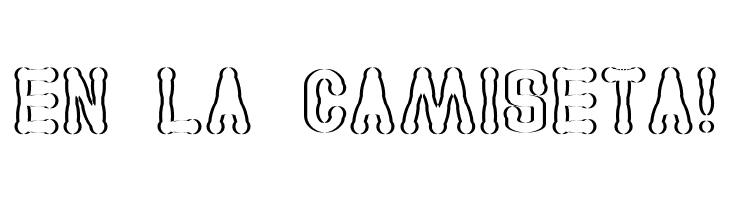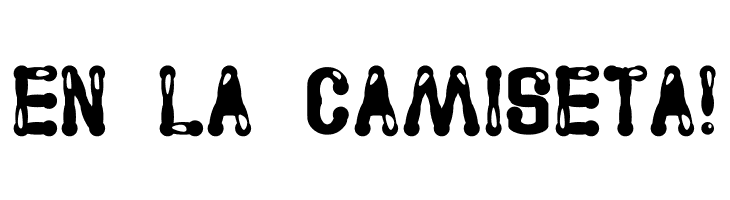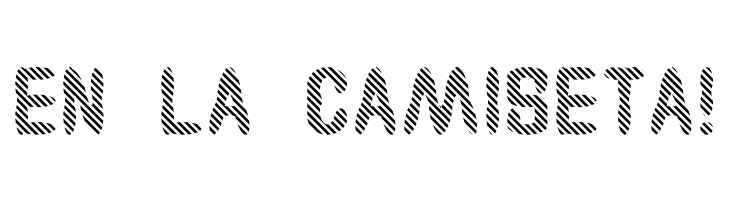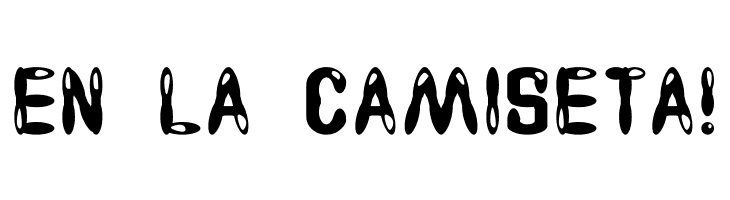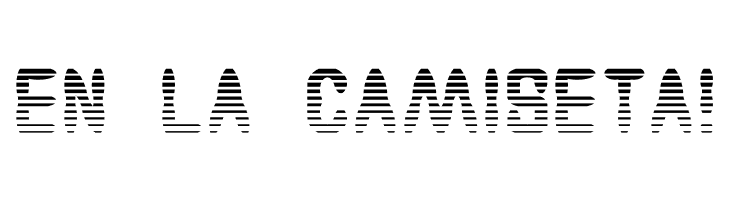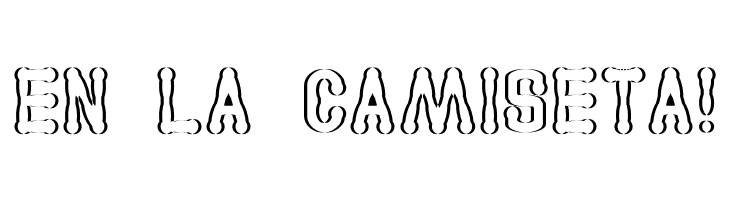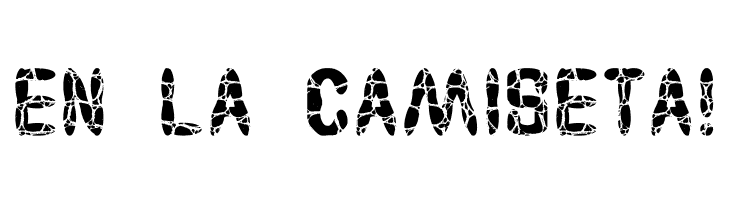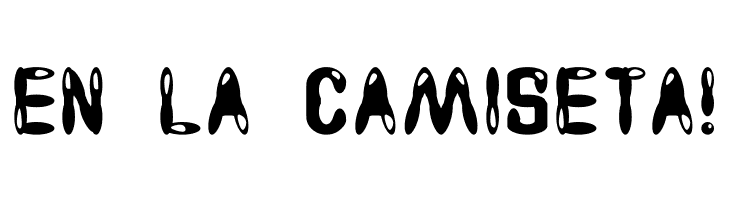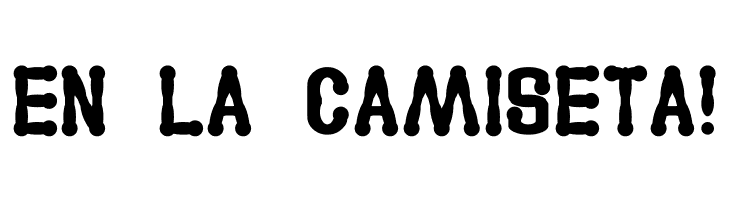
• Asswipe
• Astakhov Access Degree A
A bold, playful font with rounded, bubbly characters.
• Astakhov Access Degree A Serif
A bold, playful font with thick, rounded strokes and a whimsical style.
• Astakhov Access Degree A Sk
A bold, cracked texture font with a fragmented, distressed appearance.
• Astakhov Access Degree ADL
A bold, striped font with a modern, industrial aesthetic.
• Astakhov Access Degree ADL2
A bold, decorative font with diagonal striped patterns for a modern, edgy look.
• Astakhov Access Degree AF
A bold, playful font with organic, rounded characters.
• Astakhov Access Degree AF Serif
A bold, playful font with rounded, blob-like characters and a retro vibe.
• Astakhov Access Degree AG
A bold, playful font with high contrast and organic shapes, ideal for creative projects.
• Astakhov Access Degree AG Serif
A bold, playful font with organic, blob-like shapes and dynamic character design.
• Astakhov Access Degree AGF
A bold, playful font with organic, blob-like shapes and a fluid, dynamic style.
• Astakhov Access Degree AGFSerif
A bold, playful font with an organic, liquid-like design.
• Astakhov Access Degree AL
A bold, modern font with a unique striped pattern across each character.
• Astakhov Access Degree ALF
A modern, striped font with a digital and futuristic style.
• Astakhov Access Degree AS Serif
A bold, playful font with wavy outlines and a retro-modern vibe.
• Astakhov Access Degree AS Sk
A bold, distressed decorative font with a rugged, stencil-like appearance.
• Astakhov Access Degree ASF
A decorative, outline-style font with a playful, artistic flair.
• Astakhov Access Degree ASFSerif
A decorative, hand-drawn style font with bold outlines and textured interiors.
• Astakhov Access Degree DL
A bold, striped decorative font ideal for eye-catching designs.
• Astakhov Dished L
A bold, striped font with a modern, industrial look.